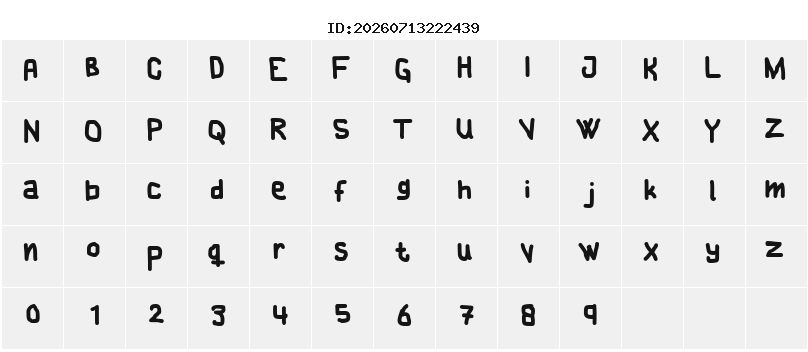
• Font Name: Cake!
• Full Font Name: Cake!
About Cake!.ttf
Cake!.ttf is a modern, elegant sans-serif font designed for ultimate readability and visual harmony. Perfect for branding, headlines, web design, and print materials.